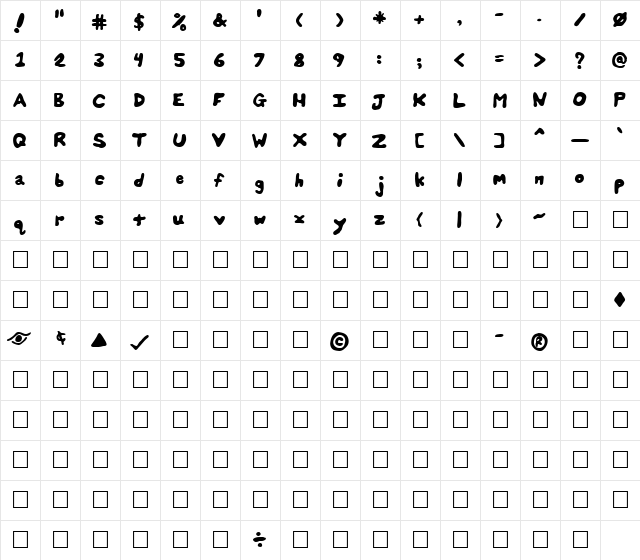
Splats Unsplatted Normal Font Preview
Splats Unsplatted Normal
Splats Unsplatted Normal Font Details
Design Context for Splats Unsplatted Typeface
Splats Unsplatted is a composed and adaptable typeface that performs quietly and consistently across a wide range of design contexts.